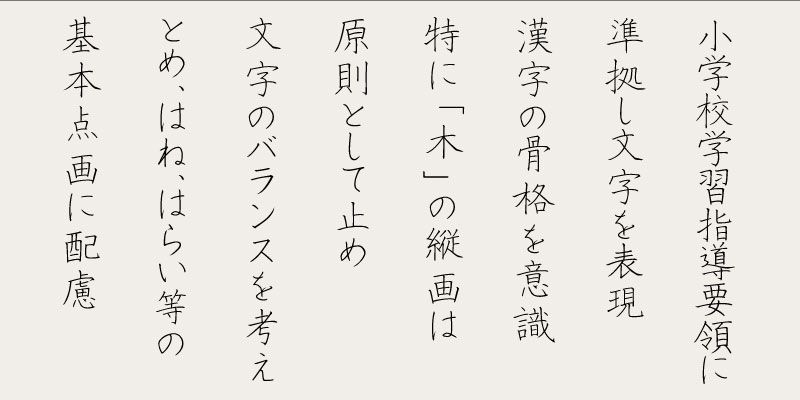
Designed in accordance with the Ministry of Education, Culture, Sports, Science and Technology’s curriculum guidelines, this typeface closely resembles handwritten characters. The character strokes, including ‘hane,’ ‘tome,’ and ‘harai,’ are designed in compliance with the guidelines.
The alphanumeric characters, hiragana, and katakana in each font of this typeface family are designed as proportional glyphs with unique widths.
With over 60 years of experience in calligraphy, Calligrapher Hakushu Nakamoto has created brush script fonts with beautiful and skillfully handwritten letter forms. He works as a professional calligrapher, offering custom services to meet a variety of client needs. By using Nakamoto’s designs, you will become more familiar with the art of traditional calligraphy.